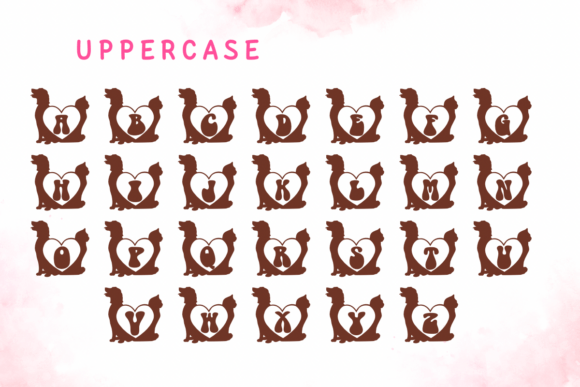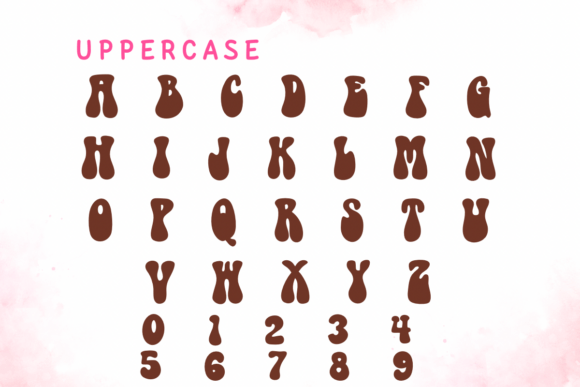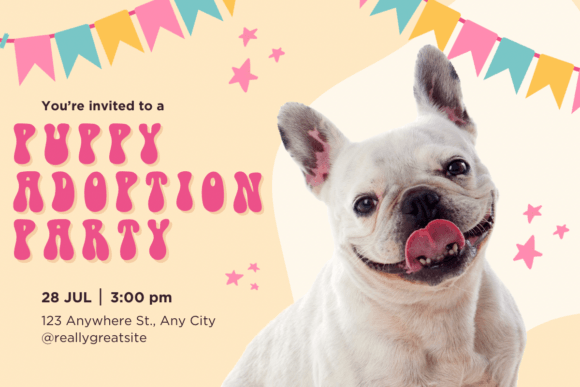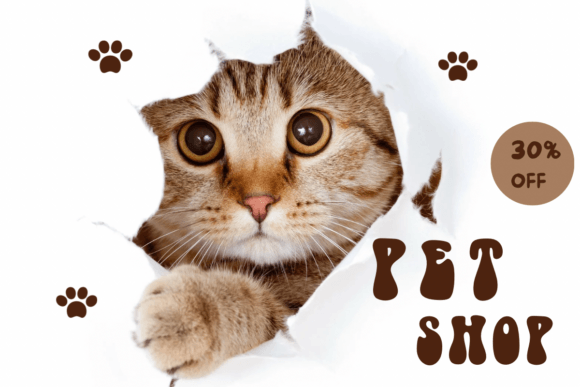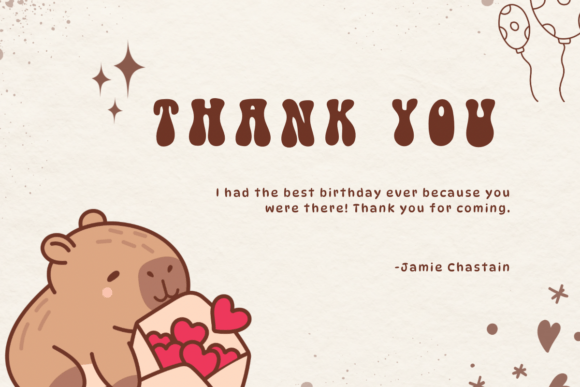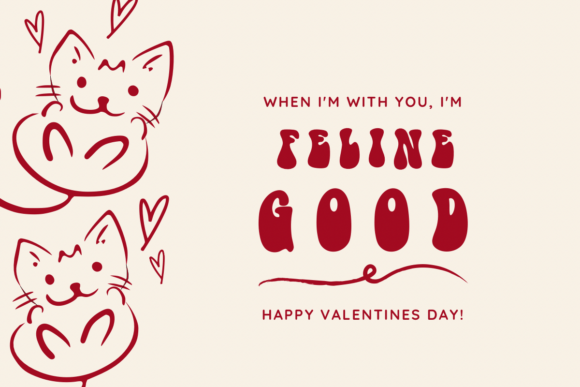
The Purrfect Font: A Deep Dive into Cat and Dog
I’ll never forget the time I was working on a project for a client who wanted a custom greeting card design. I had the perfect concept, but I was struggling to find a font that matched the playful and whimsical vibe. That’s when I stumbled upon the Cat and Dog font. It was love at first sight! ✨ The quirky, decorative letters instantly captured the tone I was going for, and I knew I had found the perfect fit.
- Unique and playful design ✨
- Perfect for creative projects, such as greeting cards, notes, and diaries 📝
- Works well for digital and print designs 📊
- Easy to read and understand, despite its decorative nature ✅
While I adore the Cat and Dog font, there are a few things to keep in mind 🤔:
- It may not be the best choice for body text or long paragraphs, as it can be a bit overwhelming ⚠️
- Some characters may not be suitable for use in small sizes or at low resolutions 📊
The Story Behind Cat and Dog
The Cat and Dog font was created with the intention of capturing the playful, carefree spirit of childhood. The designer wanted to create a font that would evoke memories of writing notes to friends, creating handmade cards, and enjoying the simple things in life. The result is a font that’s both whimsical and endearing.
| What is the Cat and Dog font best used for? | The Cat and Dog font is perfect for creative projects, such as greeting cards, notes, diaries, and social media posts. |
| Is the Cat and Dog font suitable for body text? | While it’s possible to use Cat and Dog for body text, it’s not the most ideal choice. The font is better suited for headings, titles, or short paragraphs. |